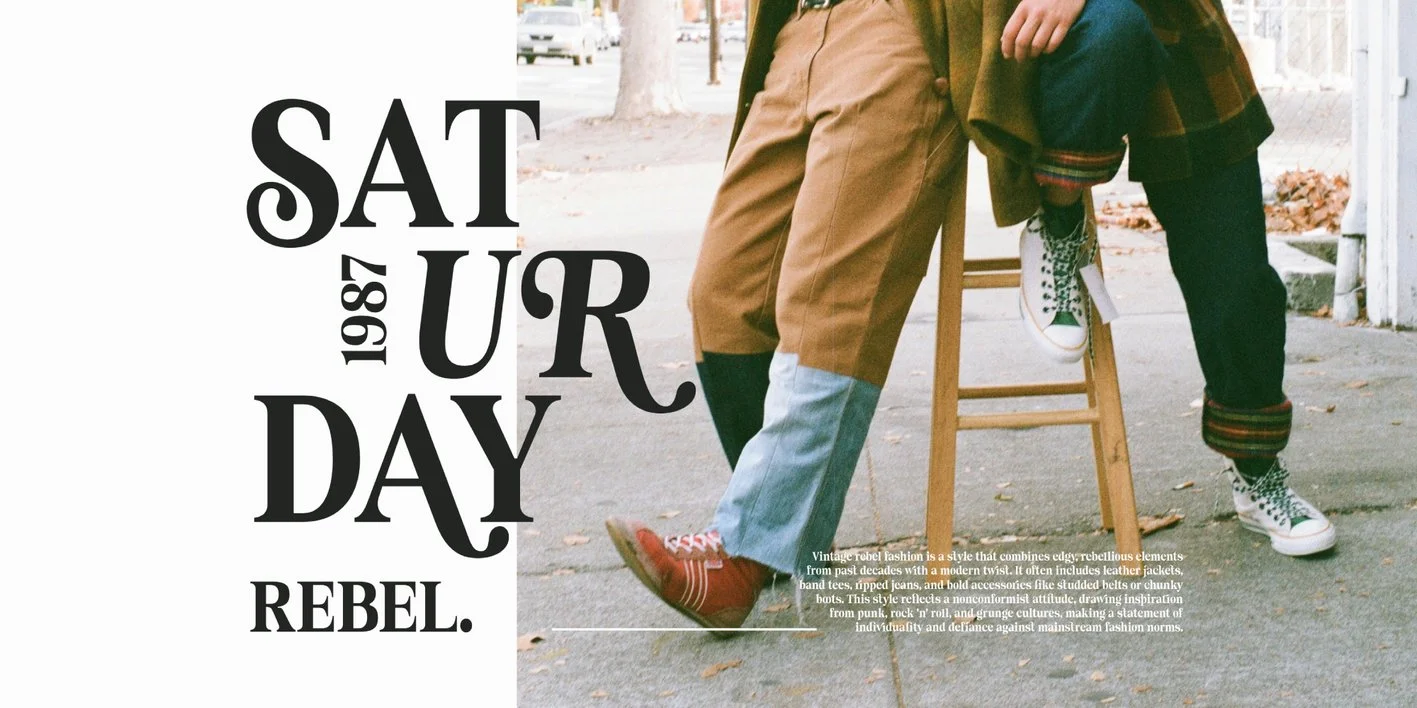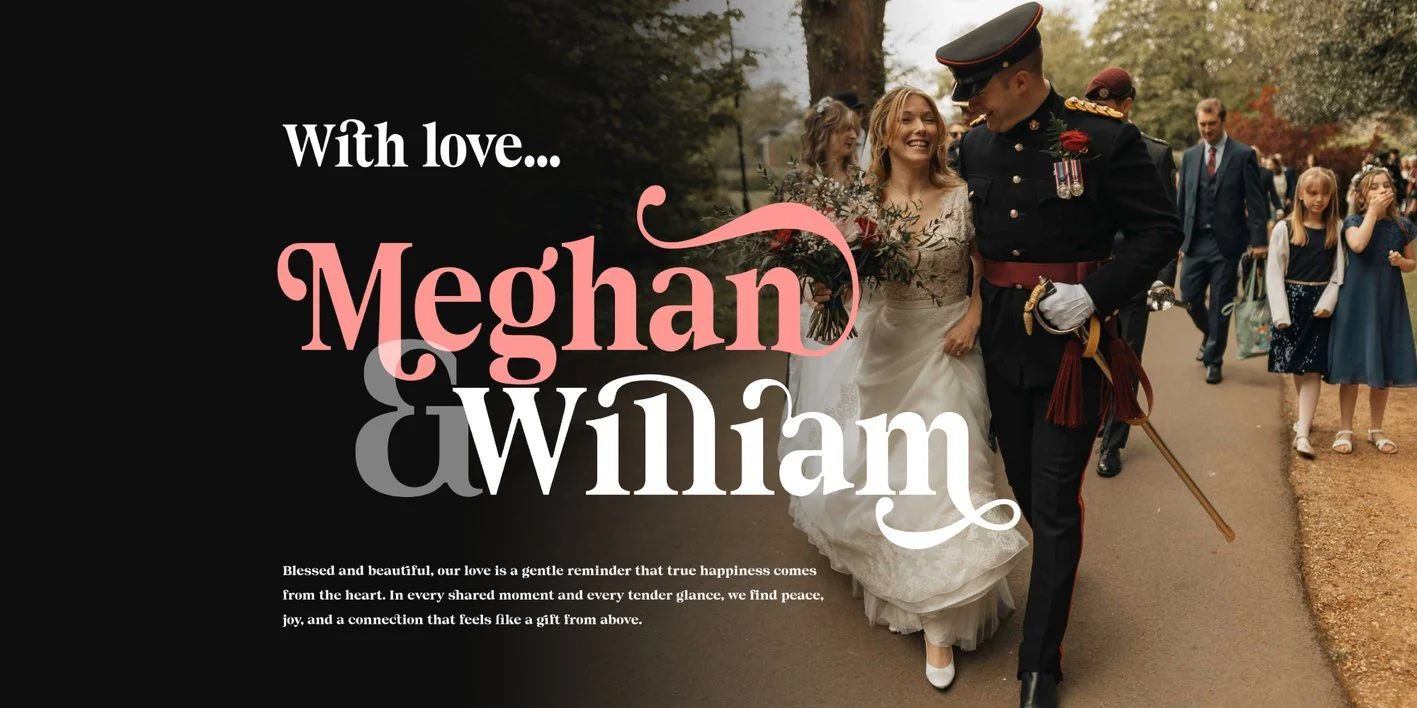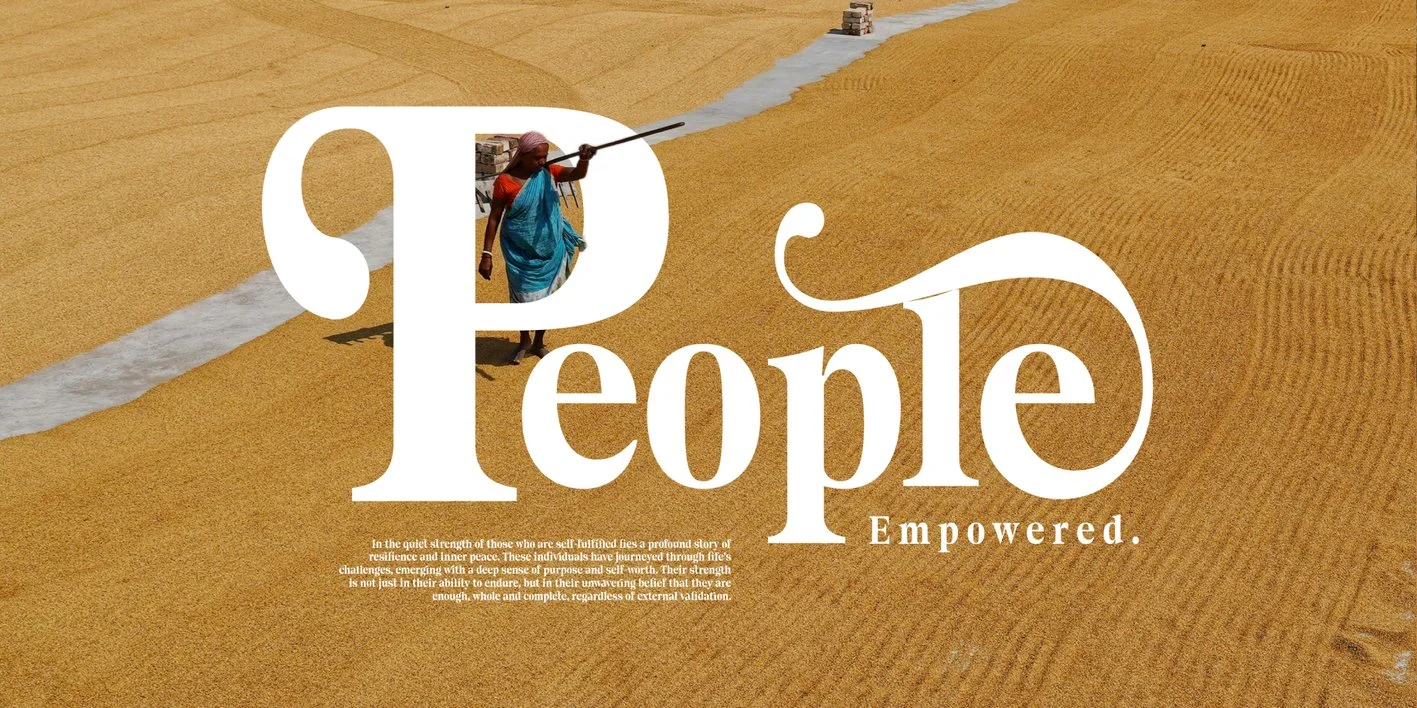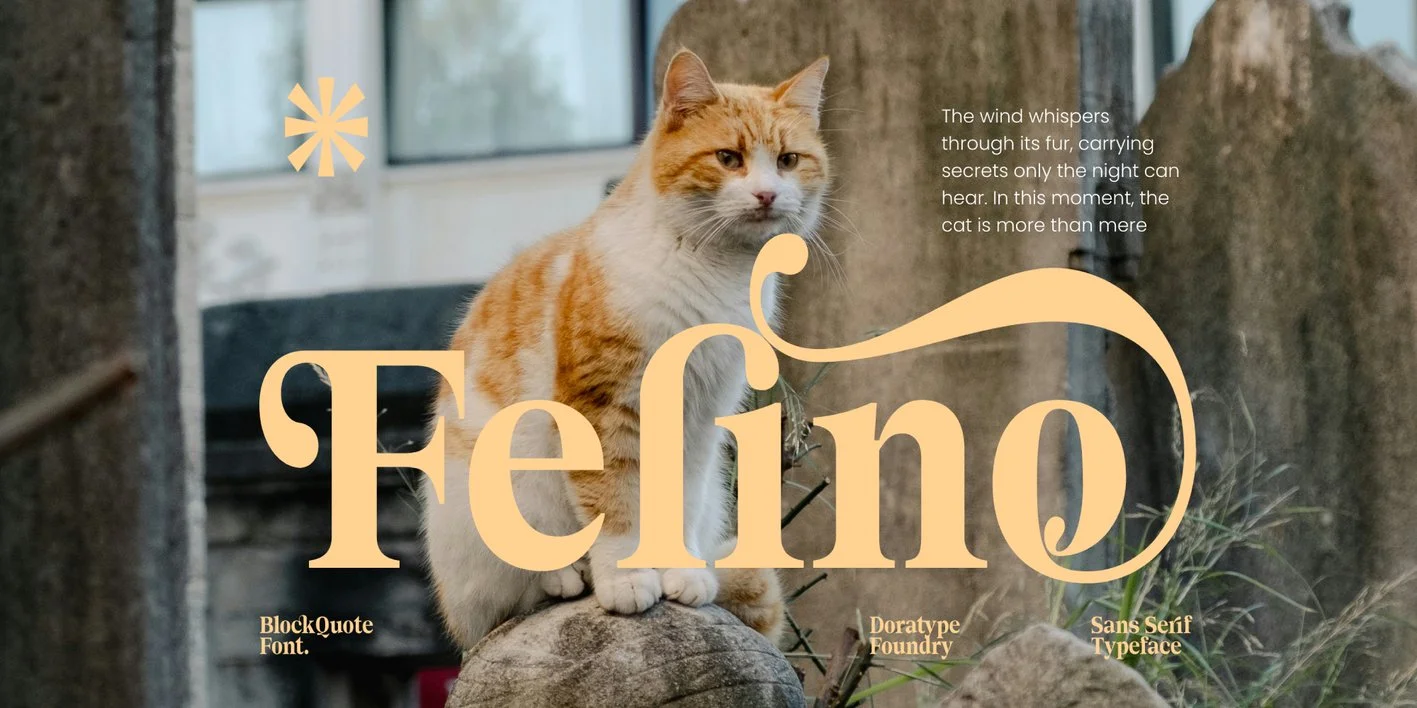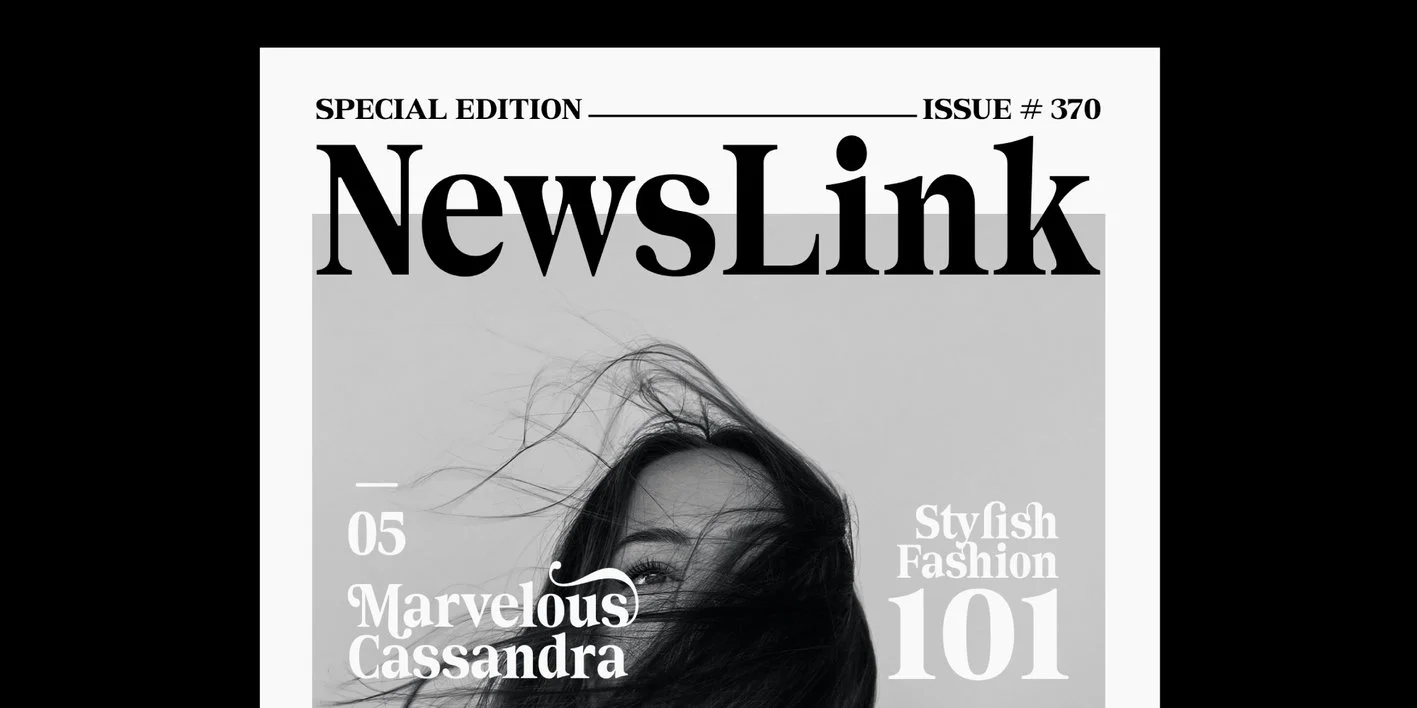
Block Quote Font
Few typefaces manage to balance consistent type colour across continuous text with genuine day-to-day practicality. Block Quote is one of them. The typeface brings a versatile sensibility to a broad range of creative disciplines, with visual harmony and precise spacing that holds up whether the work is print-first or screen-first.
In practice, Block Quote proves particularly effective for logo design, signage systems, advertising campaigns, annual reports, social media graphics. Designers reaching for it find that the type decisions feel resolved rather than laboured — a useful quality when client timelines are tight.
The range of applications extends to web design, brand identity systems, product labels, poster creation. That breadth is deliberate: the proportions and spacing were stress-tested across a wide range of mock briefs before the typeface was finalised.
Brand strategists building visual languages find Block Quote a reliable choice for projects that demand both personality and restraint. The design avoids the self-conscious quirkiness that dates quickly, settling instead for considered distinctiveness that holds up over time.